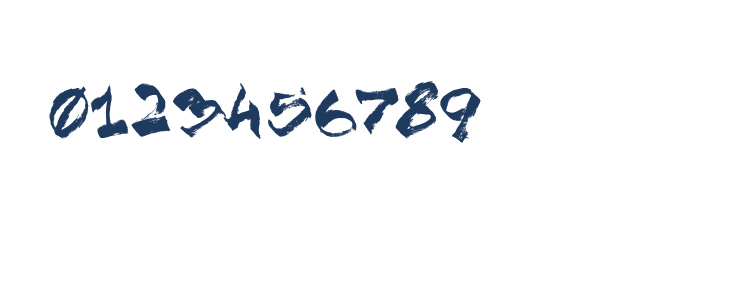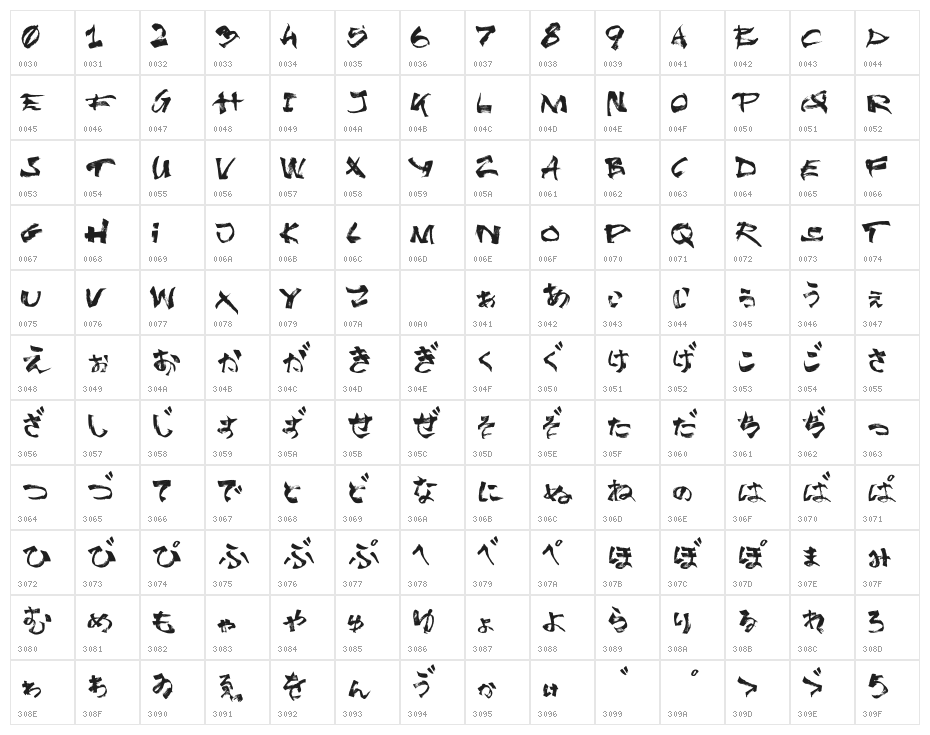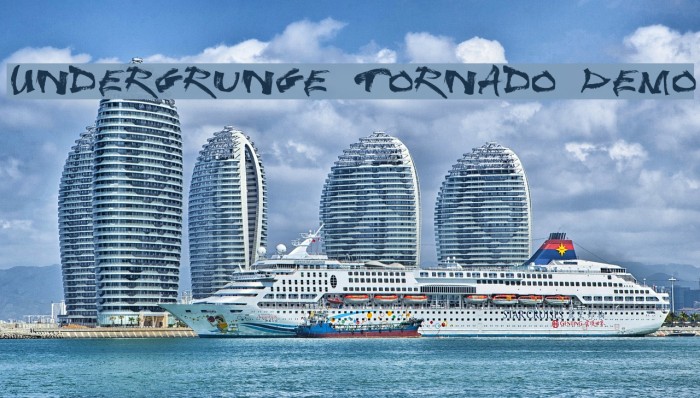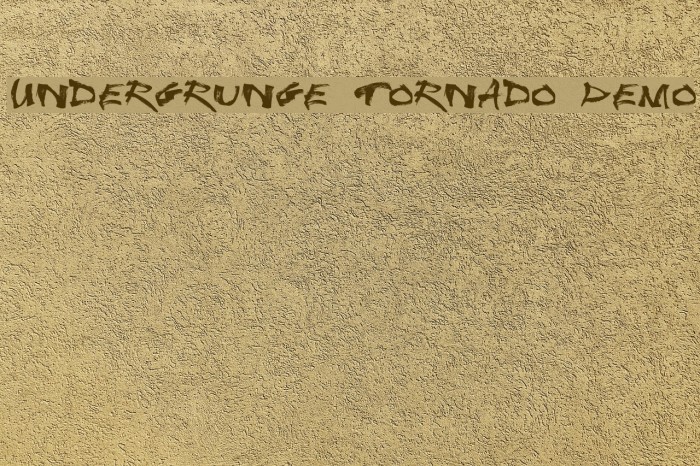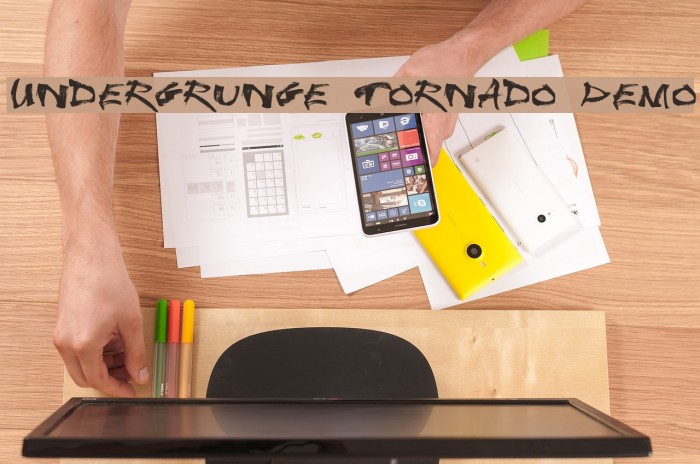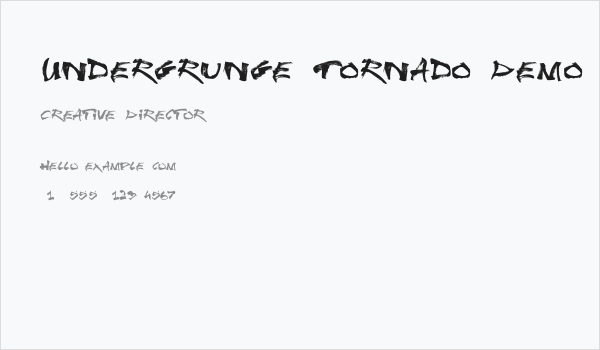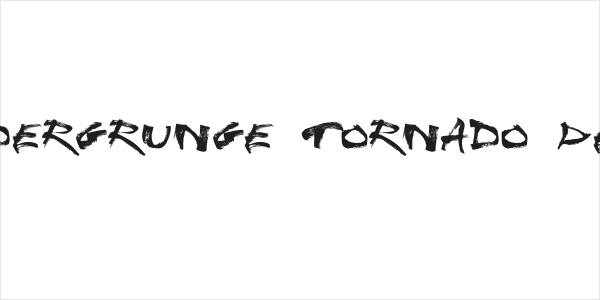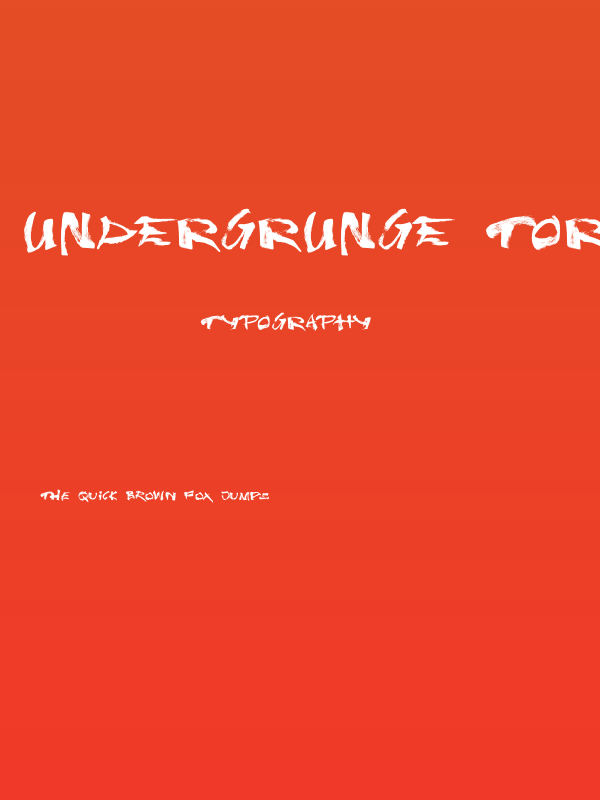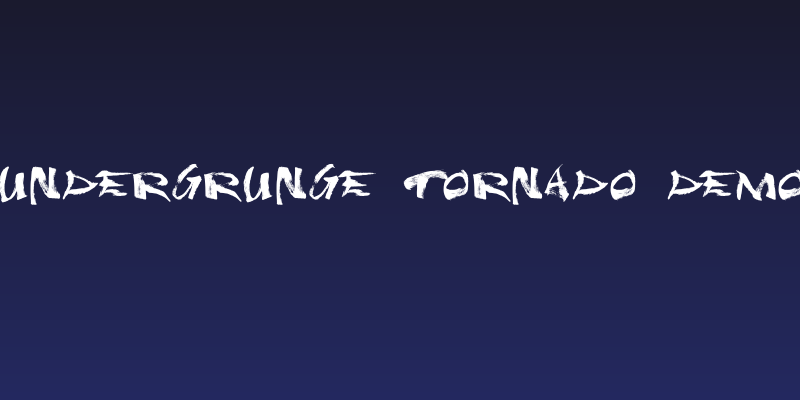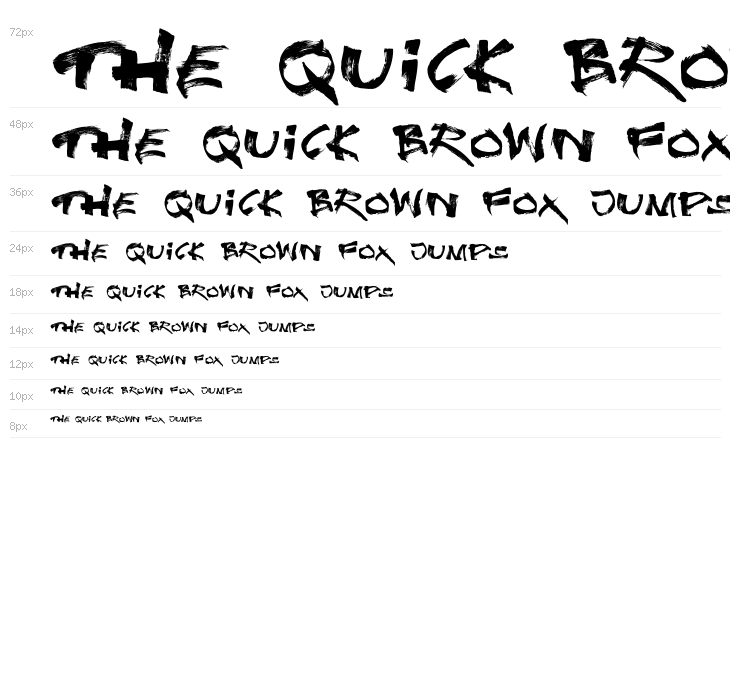
Undergrunge Tornado Demo Font
Undergrunge Tornado Demo Description
This font exhibits a bold and dynamic style, characterized by its rough, brushstroke-like appearance. The letters are irregular and jagged, giving a sense of movement and energy. Each character appears as if it has been painted with a broad brush, creating a textured and distressed look. The uppercase and lowercase letters maintain a consistent style, with exaggerated strokes and varying thicknesses that add to the chaotic yet artistic feel. Numbers and special characters follow the same design principles, ensuring a cohesive look across all elements.
| Proposed Projects | Ideal for projects requiring a grunge or artistic touch, such as album covers, posters, or edgy branding materials. |